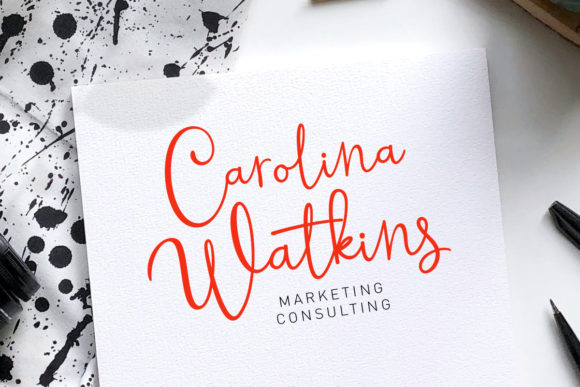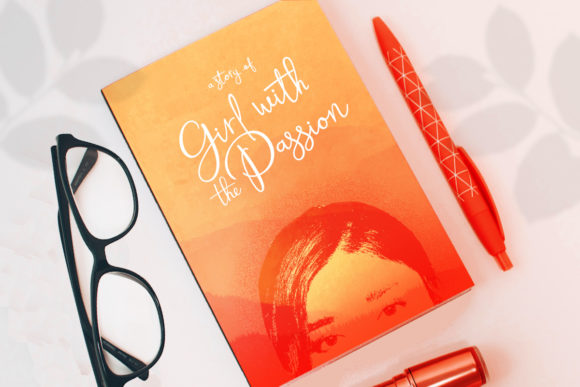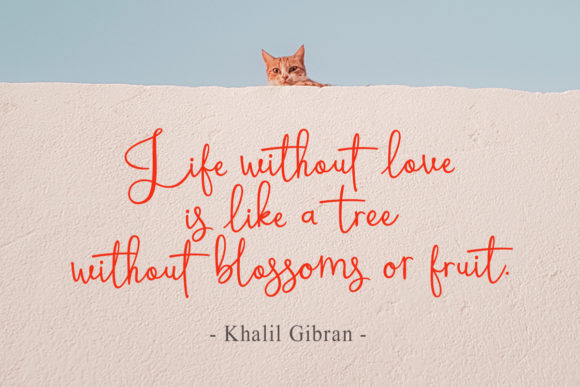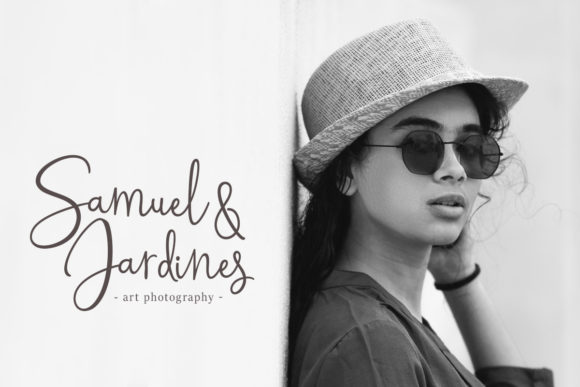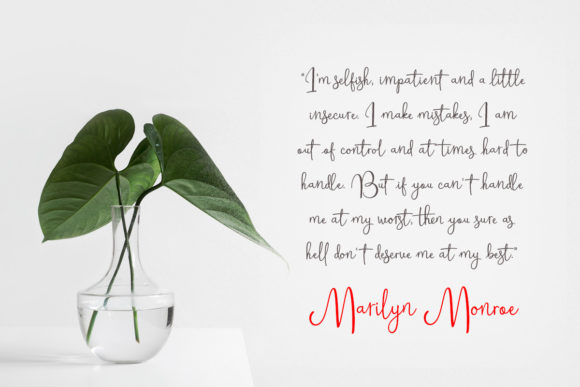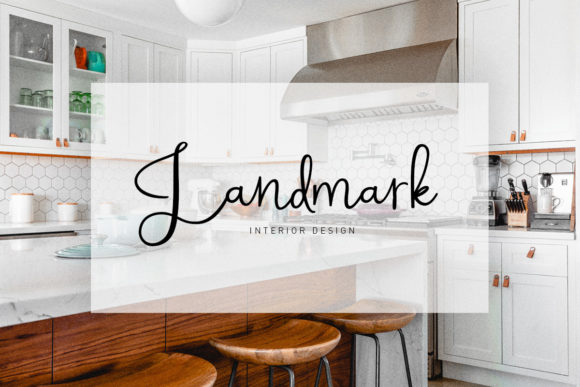
The Alleysha Font: Elevate Your Designs with Elegance and Flair
I’ll never forget the design project that had me on the hunt for the perfect font. I was working on a luxury brand’s brochure, and my client was adamant that the font had to be elegant, yet modern. I scoured the internet, tried out countless fonts, but nothing seemed quite right. That was until I stumbled upon Alleysha – a beautiful, handwritten font that exceeded my expectations in every way.
What I Love About Alleysha ✨
- 💫 Elegant and flowing script that’s perfect for luxury brands, weddings, and high-end designs
- 🎨 A varying baseline that adds a touch of sophistication and whimsy
- 💥 Stunning alternates and glyphs to give your designs a unique twist
- ⚠️ Some users may find the font’s elegance and fluidity challenging to pair with bold or sans-serif fonts
- ⚠️ The font’s intricate details may not render well at very small sizes
The Story Behind Alleysha: Designer Inspiration
Alleysha was designed with the intention of creating a font that exudes elegance and sophistication. The designer aimed to craft a font that would be perfect for luxury brands, weddings, and high-end designs. With its intricate details and flowing script, Alleysha is sure to elevate any design project.
Q: Is Alleysha suitable for body text or long-form content?
A: While Alleysha is a beautiful font, it’s best suited for headlines, titles, and short-form content. Its intricate details and flowing script may not be ideal for body text or long-form content.